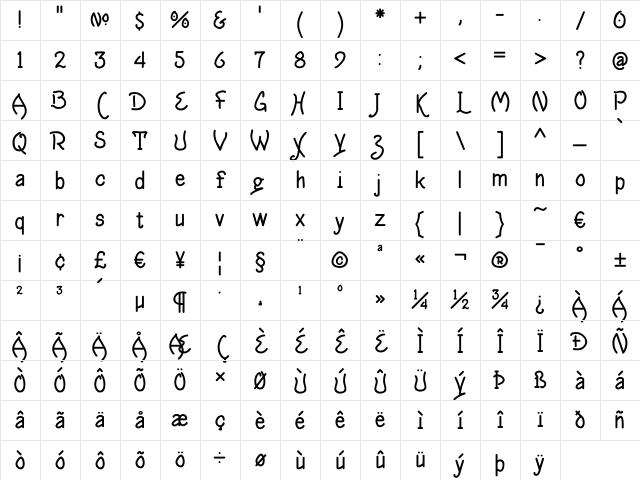
SchoolsOut Regular
Foundry: HT
Designer: HT
Design Context for SchoolsOut
SchoolsOut is a composed and adaptable typeface that performs quietly and consistently across a wide range of design contexts.